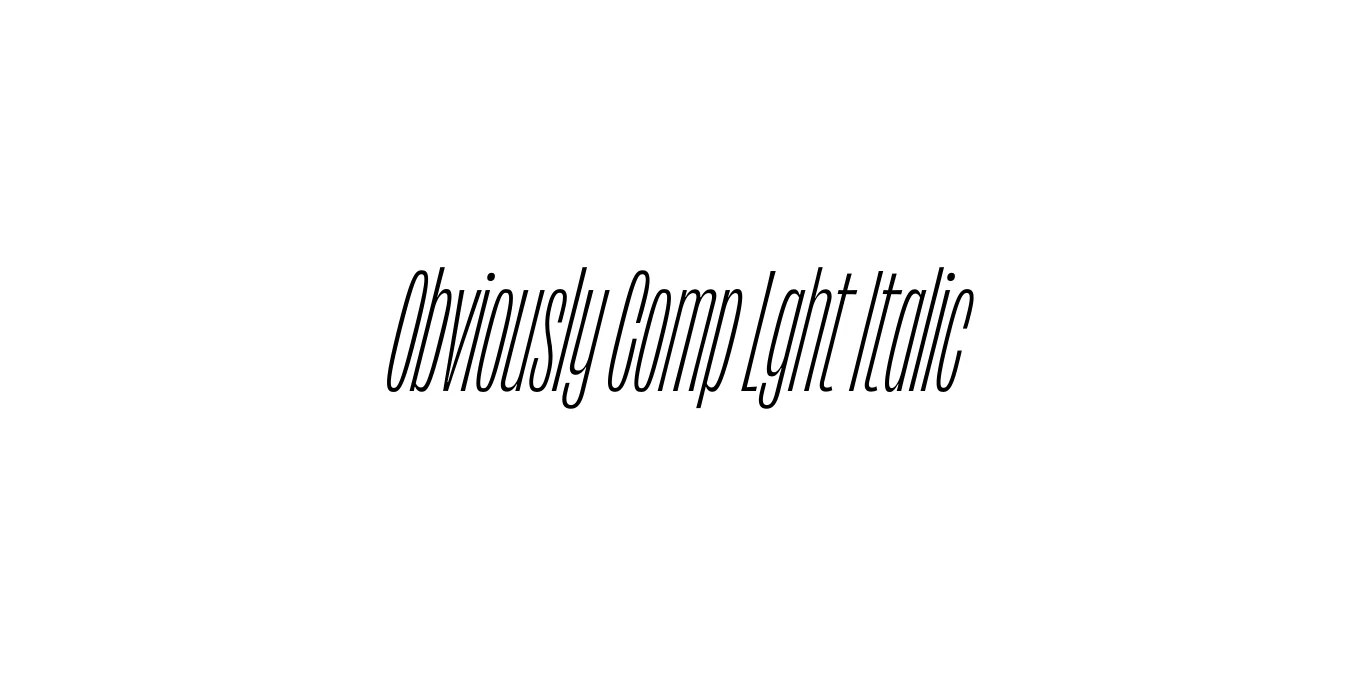
Obviously Comp Lght Italic
Designed by James Edmondson
| Similar Fonts | Druk Condensed, Impact, Helvetica Compressed, Compacta |
Obviously Comp Lght Italic is a distinctive member of the expansive Obviously type family, designed by James Edmondson of OH no Type Co. This variant specifically explores the extremes of narrowness, offering a Compressed width that is perfect for designers looking to pack personality into tight horizontal spaces. The light weight combined with the italic slant provides a sense of kinetic energy and elegance, moving away from the rigid structures of traditional condensed fonts to embrace a more expressive, vernacular-inspired aesthetic.
The history of this font is rooted in a desire to move past the sterile, clinical nature of mid-century modernism. Obviously draws inspiration from local Bay Area signage and the quirky, often overlooked details found in everyday graphic design. The Compressed Light Italic weight is particularly effective for editorial use and high-impact display work, where its high x-height and short ascenders allow for tight line spacing and a contemporary, dense typographic texture.
Obviously Comp Lght Italic Best Uses
Excellent for magazine headlines and sidebars where space is limited but impact is essential.
Ideal for creating dense, vertical typographic layouts with a modern edge.
Provides a unique, high-energy look for dynamic Instagram stories or video overlays.
Perfect for tall, narrow containers or product labels requiring stylish typography in small spaces.